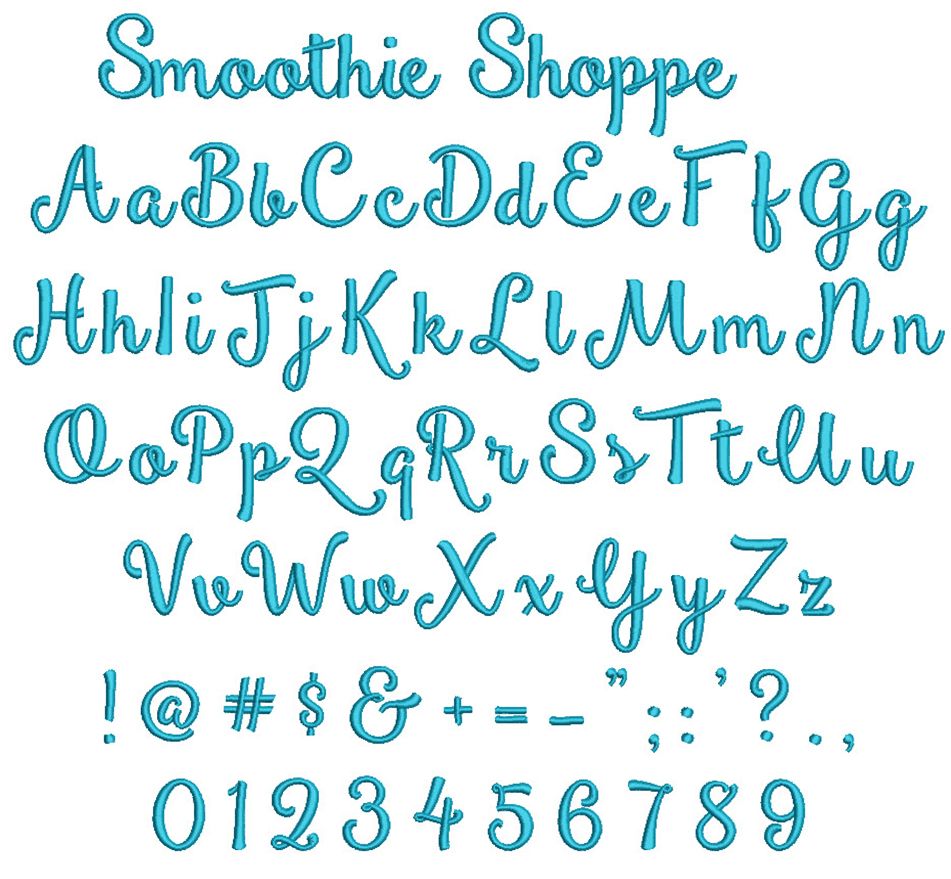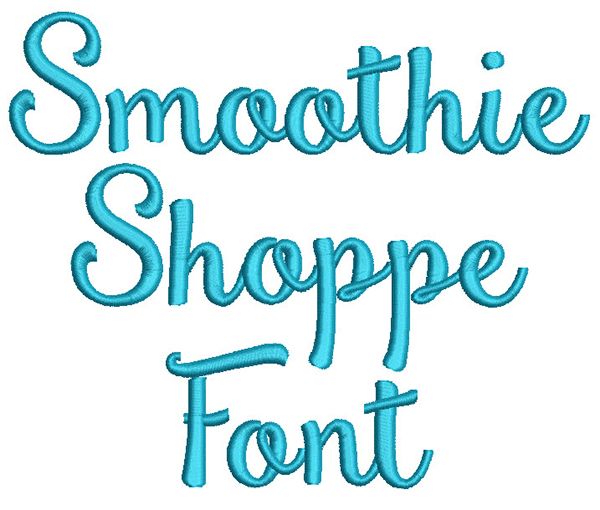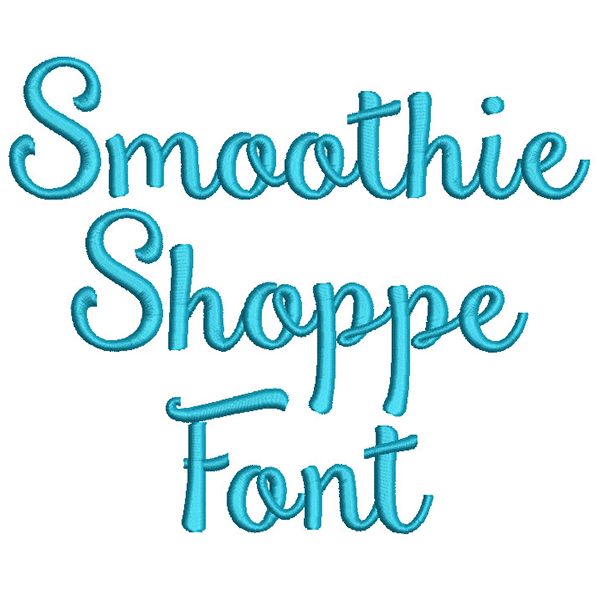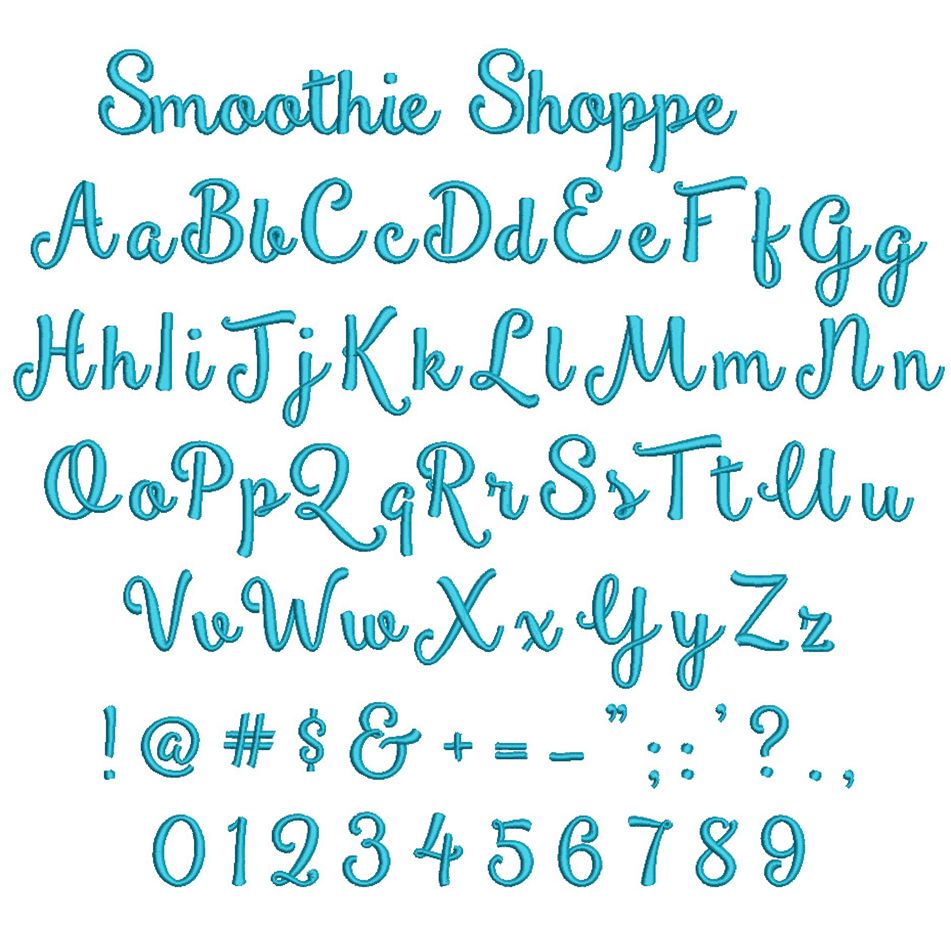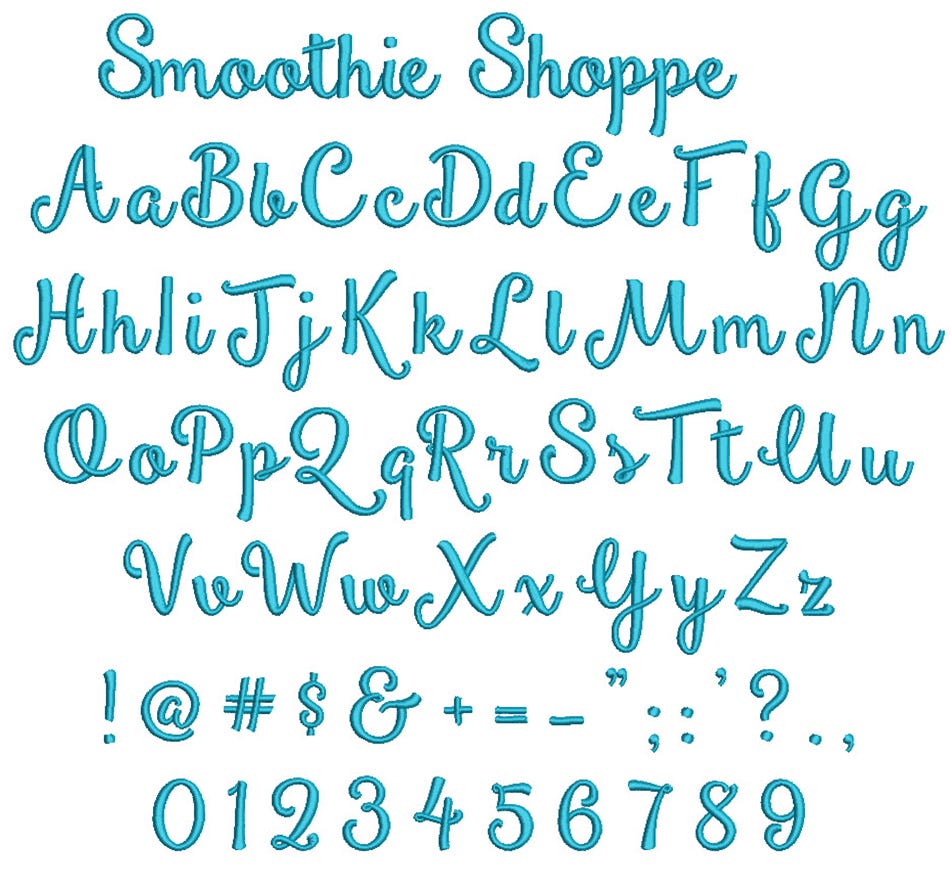
Smoothie Shoppe Satin Stitch Embroidery Font
Beautiful upright script font! All of our font alphabets are 100% manually digitized to bring you maximum stitch quality.